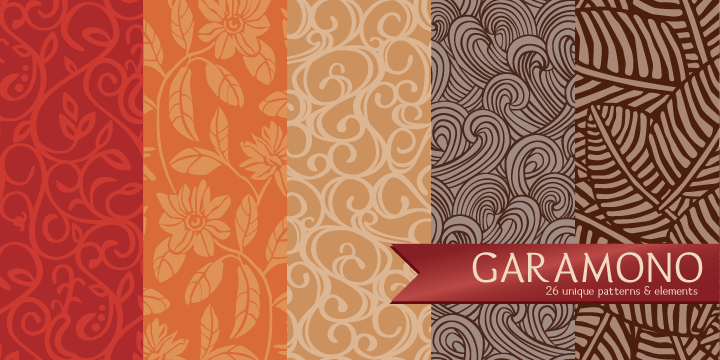
I have been eager to create a pattern font, and Garamono is a set of patterns which you can simply create by typing an alphabet on keyboard.
Garamono consists of 26 unique and original patterns, and 26 elements from traditional to modern.
This pattern font is good for using as background, wallpaper, clothing, etc.
Garamono